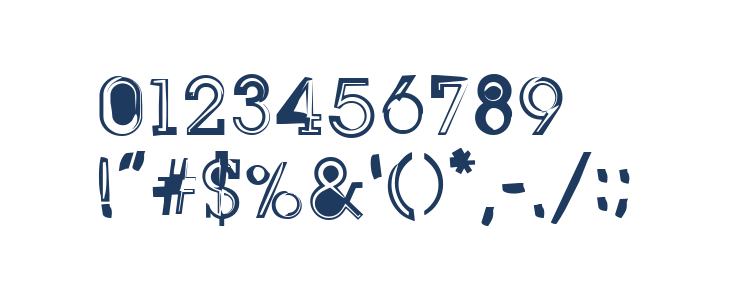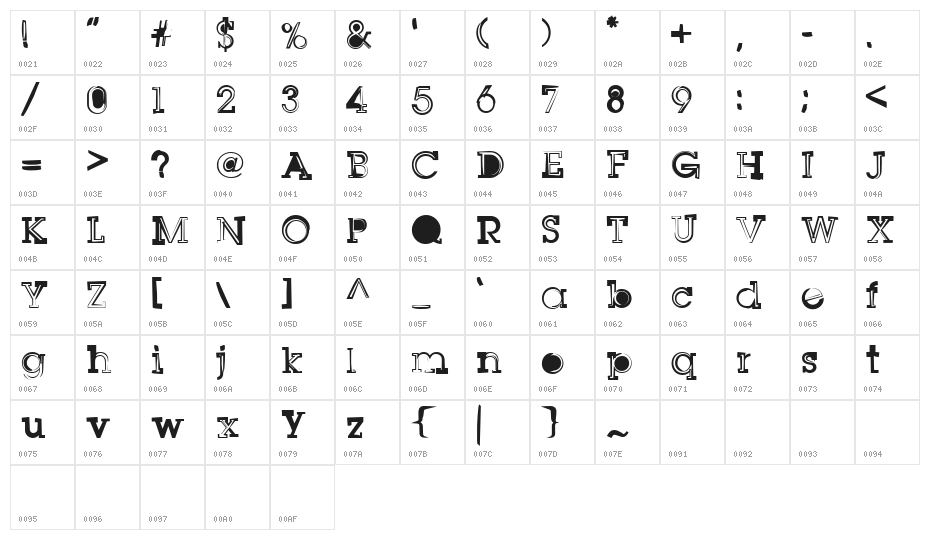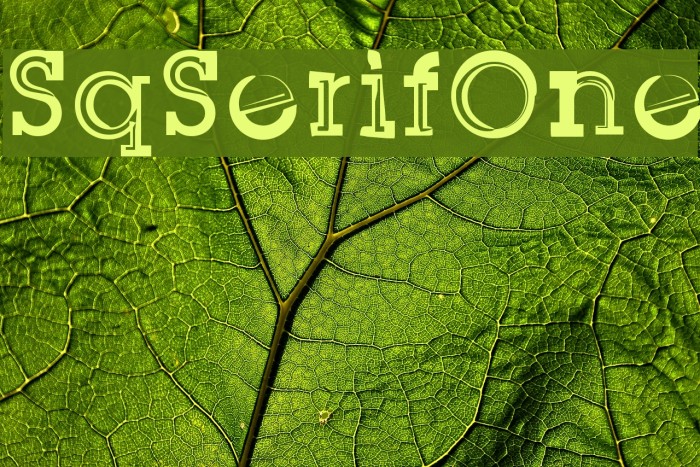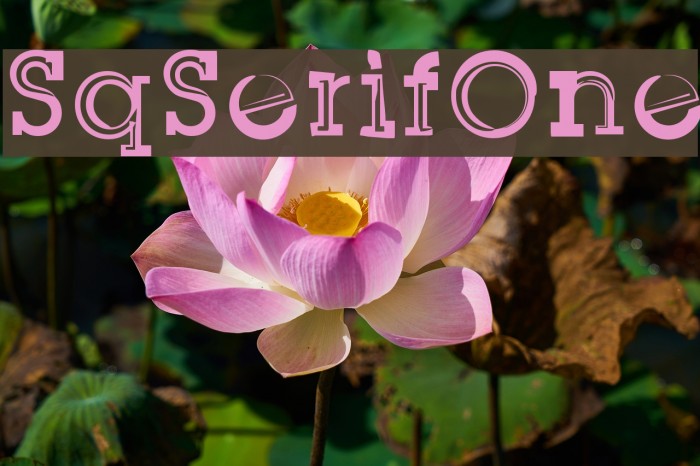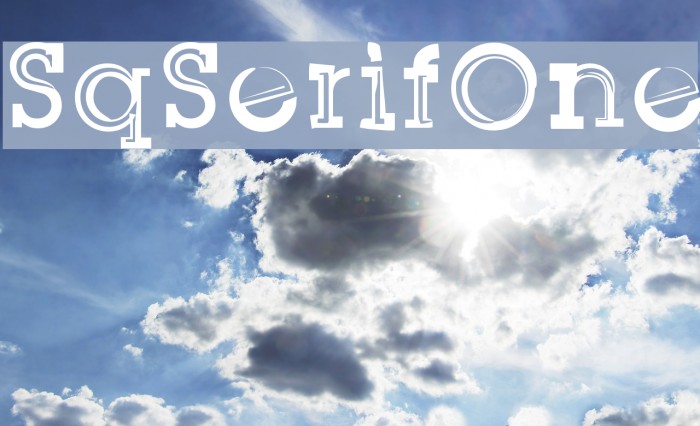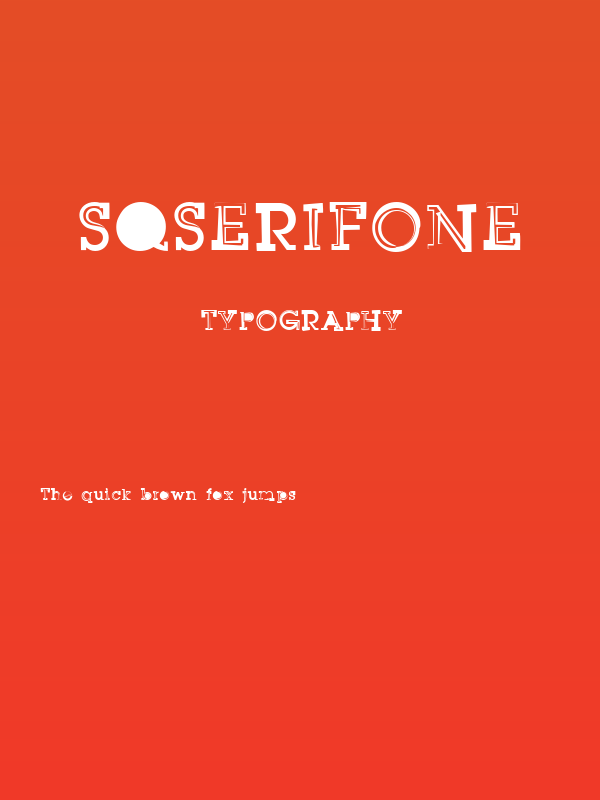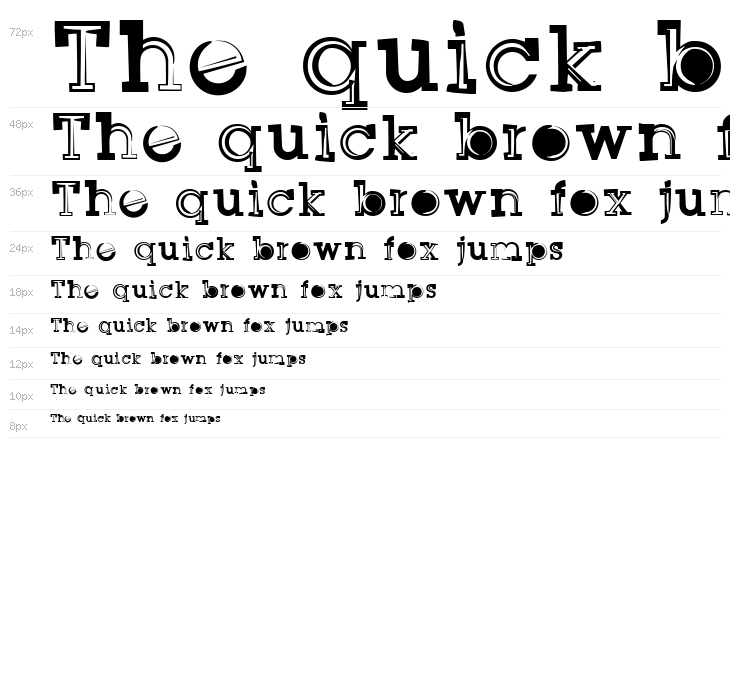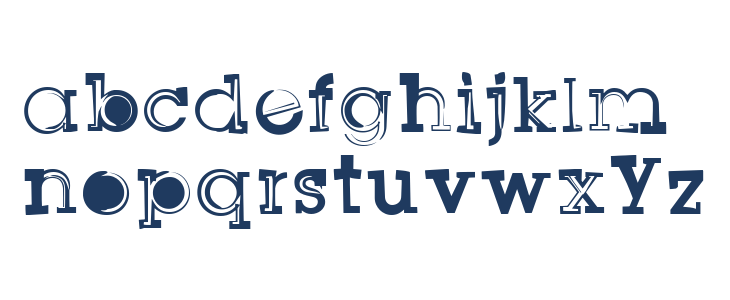
SqSerifOne Font
SqSerifOne Description
This font features a bold and dynamic design with a mix of solid and outlined characters, creating a striking visual contrast. The uppercase letters are particularly bold, with some characters incorporating unique cut-out sections that add to the font's decorative appeal. The lowercase letters maintain a consistent style, with a playful yet structured appearance. Numbers and special characters follow the same bold and decorative theme, making this font suitable for eye-catching designs. The overall style is modern and artistic, with a touch of vintage flair due to the serif elements.
| Proposed Projects | Ideal for posters, branding, headlines, and creative projects that require a bold statement. |